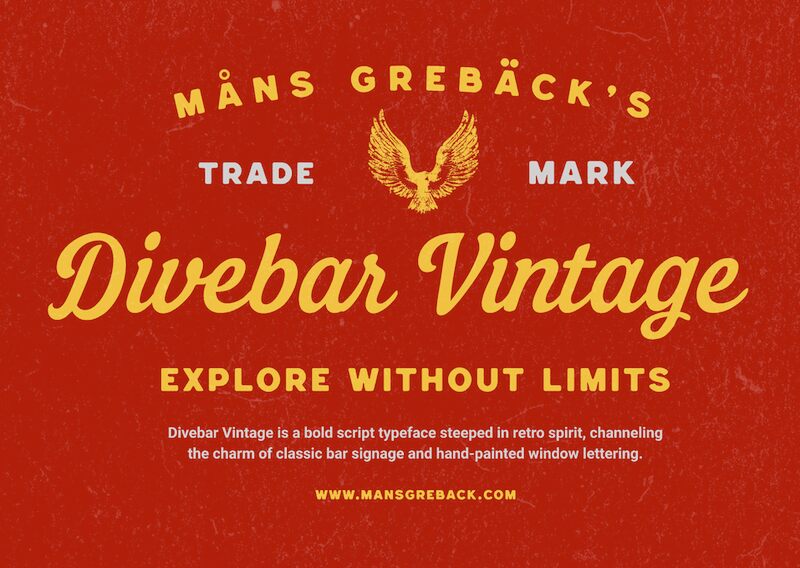
Divebar Vintage font
Divebar Vintage
Divebar Vintage is a bold script typeface that captures a retro spirit, channeling the charm of classic bar signage and hand-painted window lettering. Its curvy strokes and expressive contrasts evoke a warm sense of nostalgia while maintaining an air of lively confidence.